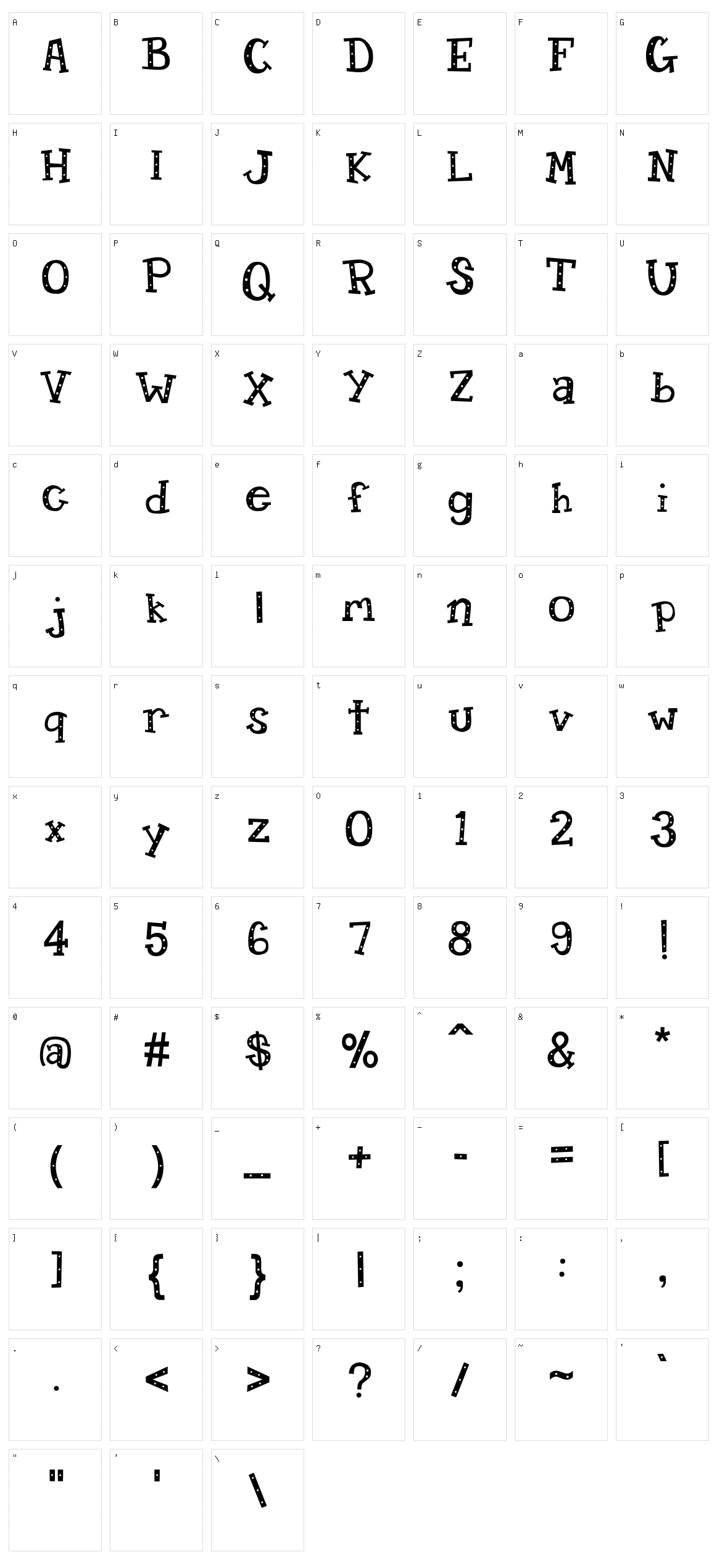
The free font Candy Randy is carefully designed by Lauren Ashpole, showcasing a thoughtful balance of creativity and usability and falls under the Cartoon font style. When you download the ZIP file, it contains only 33.96 KB of font files, making it lightweight and quick to download. Please review the license details below to understand permitted usage and distribution rights. If license information is not available, we recommend using this font for personal projects only or contacting the author directly for commercial usage permissions.